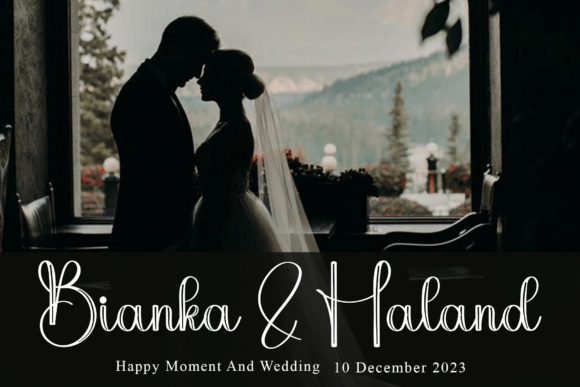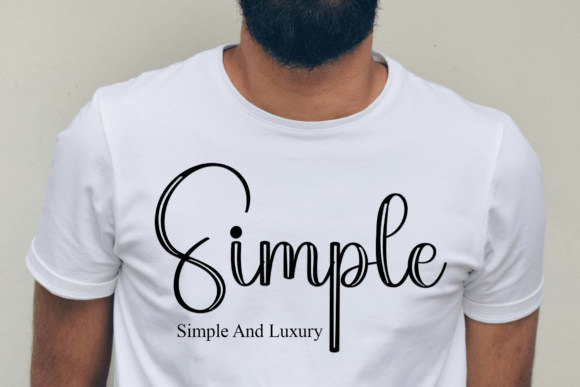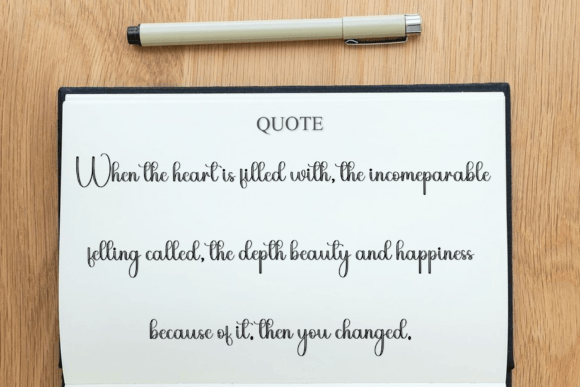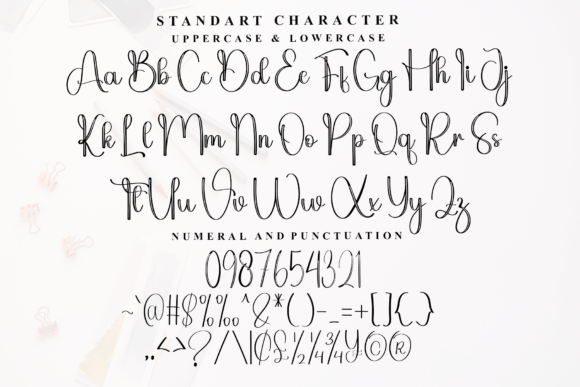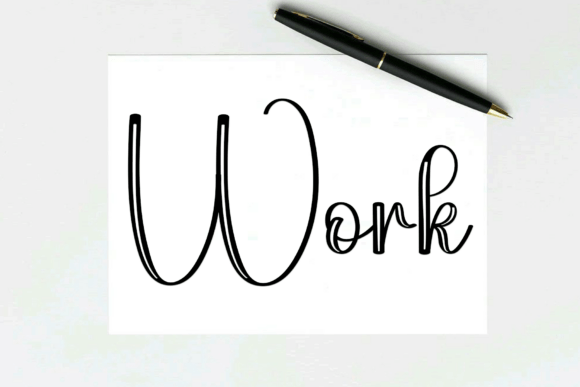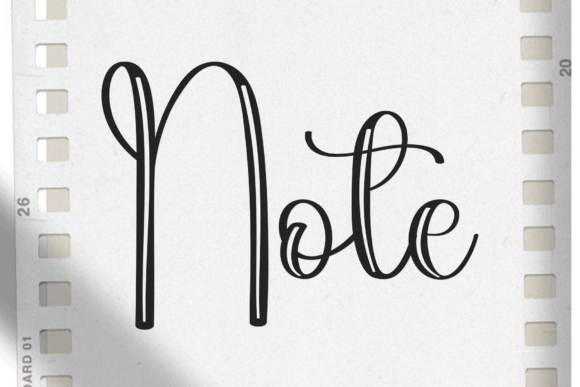
Bubble Valentine Font: Elevate Your Designs with a Stylish Handwritten Script
In the world of typography, fonts play a crucial role in conveying emotions and setting the tone for designs. If you’re a designer or crafter looking for a unique and stylish font to add a personal touch to your projects, look no further than the Bubble Valentine Font. This modern, handwritten script font is perfect for creating beautiful and eye-catching designs that exude a sense of playfulness and creativity.
What is Bubble Valentine Font?
Bubble Valentine Font is a stylish, handwritten script font that boasts smooth, flowing curves, giving it a natural and playful appearance. Its modern feel makes it an excellent choice for designers and crafters who want to add a touch of sophistication and elegance to their designs. Whether you’re working on invitations, logos, quotes, or any other project, Bubble Valentine Font is sure to bring a fun and creative vibe to your work.
Key Features of Bubble Valentine Font
- Handwritten Script: Bubble Valentine Font features a beautiful, handwritten script that adds a personal touch to any design.
- Smooth Flowing Curves: The font’s smooth, flowing curves give it a natural and playful appearance, making it perfect for designs that require a touch of elegance and sophistication.
- Modern Feel: With its modern feel, Bubble Valentine Font is ideal for designers and crafters who want to create designs that are contemporary and stylish.
- Versatile: This font is versatile and can be used for a wide range of projects, including invitations, logos, quotes, and more.
Why Choose Bubble Valentine Font?
There are many reasons why designers and crafters choose Bubble Valentine Font for their projects. Here are a few:
- Unique and Stylish: Bubble Valentine Font is a unique and stylish font that will set your designs apart from the rest.
- Customizable: Bubble Valentine Font is highly customizable, allowing you to adjust the font to suit your design needs.
- Fun and Creative: This font brings a fun and creative vibe to any project, making it perfect for designers and crafters who want to add a touch of personality to their work.
Using Bubble Valentine Font in Your Designs
Bubble Valentine Font is a versatile font that can be used in a wide range of designs. Here are a few ideas to get you started:
- Invitations: Use Bubble Valentine Font to create beautiful and elegant invitations for weddings, parties, and other special events.
- Logos: This font is perfect for creating unique and stylish logos for businesses, brands, and products.
- Quotes: Use Bubble Valentine Font to create inspiring and motivational quotes that will capture the attention of your audience.
- Social Media Graphics: This font is ideal for creating social media graphics that require a touch of elegance and sophistication.
Tips for Getting the Most Out of Bubble Valentine Font
Here are a few tips for getting the most out of Bubble Valentine Font:
- Experiment with Different Sizes: Experiment with different font sizes to find the perfect size for your design.
- Pair with Other Fonts: Pair Bubble Valentine Font with other fonts to create a unique and stylish typography.
- Use in Combination with Images: Use Bubble Valentine Font in combination with images to create visually appealing designs.
- Customize the Font: Customize the font to suit your design needs by adjusting the font color, style, and more.
In conclusion, Bubble Valentine Font is a stylish and versatile font that is perfect for designers and crafters who want to add a personal touch to their designs. With its smooth, flowing curves and modern feel, this font is sure to bring a fun and creative vibe to any project. Whether you’re working on invitations, logos, quotes, or social media graphics, Bubble Valentine Font is an excellent choice.